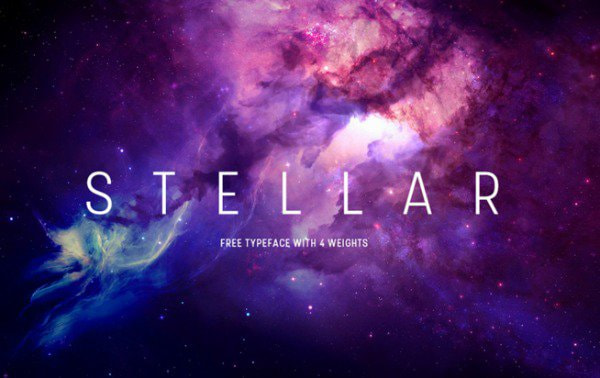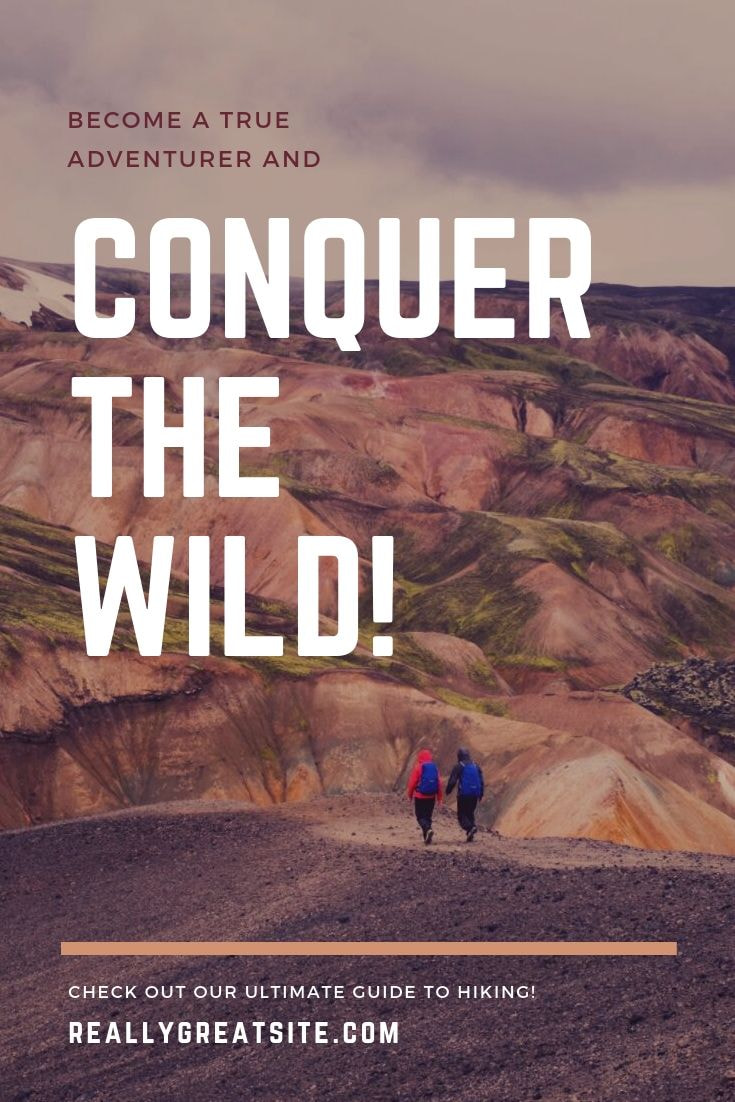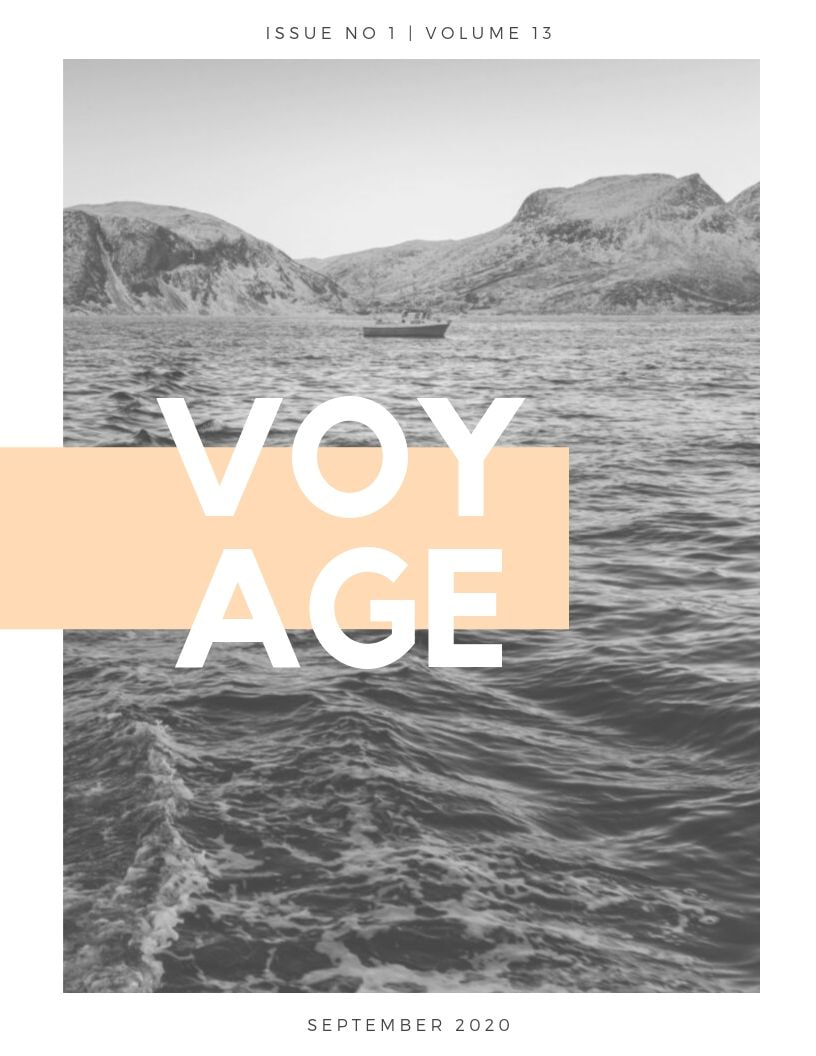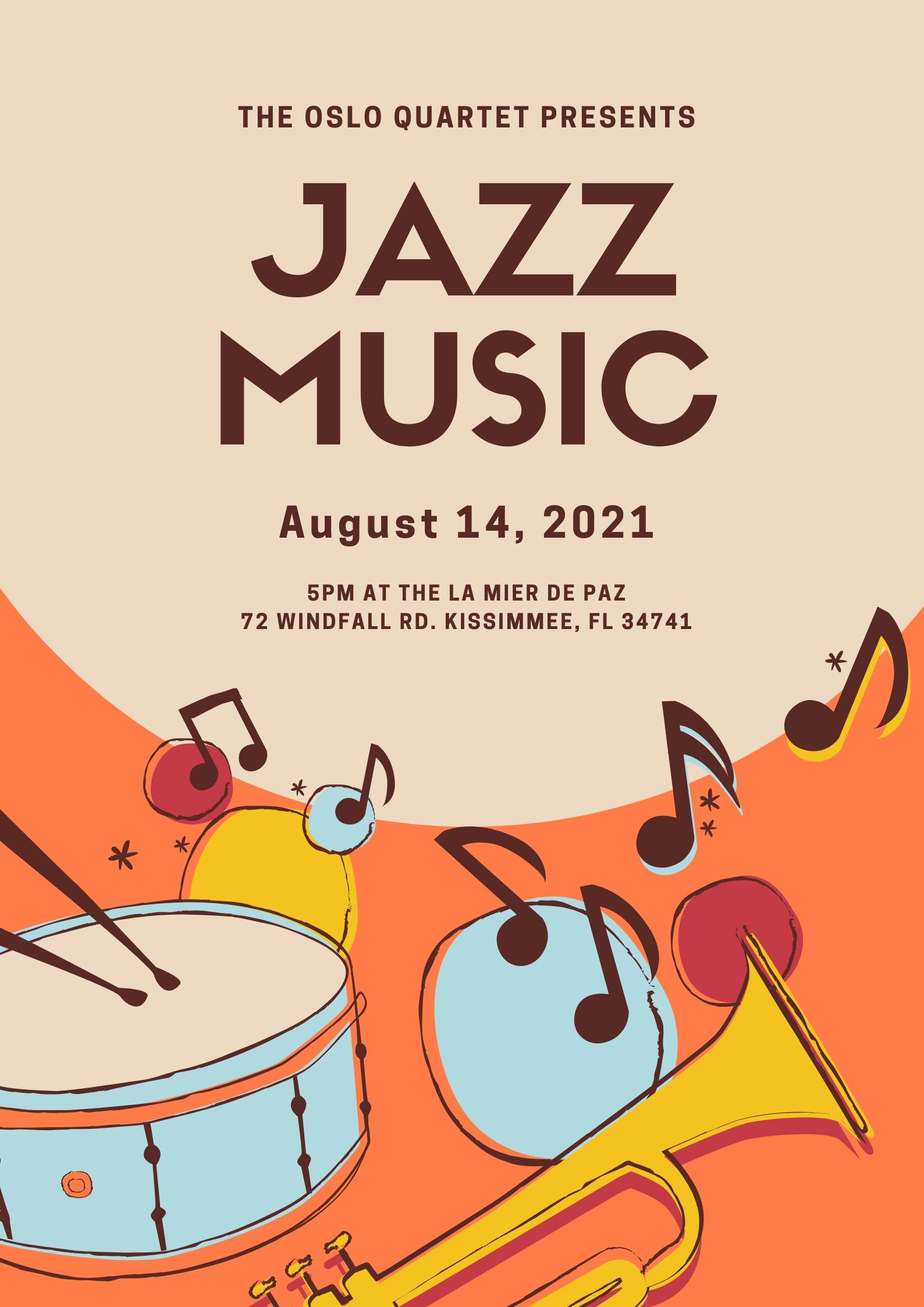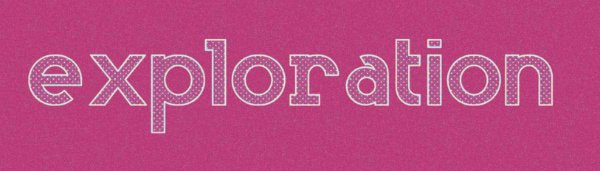
Download Sans Serif Fonts Jar PNG. Google fonts now supports variable fonts. Font name newest most downloads. Browse by alphabetical listing, by style, by author or by popularity. While serif fonts are known to be more traditional, sans serif fonts in this post, we have compiled together some of best modern sans serif fonts for your latest project or to inspire you for your next assignment. Available for personal & commercial. Archive of freely downloadable fonts. The best selection of sans serif fonts for windows and macintosh. 117 downloads free for personal use. Sans serif, commercial use +. Demo donationware free free for personal use public domain, gpl, ofl shareware. Download the best sans serif fonts from the web that are robust, gorgeously designed and perfect for any design project. Sans serif fonts, as you might already know, are the fonts with no projecting lines at the ends. Total in section 1511 of the fonts available to free download. Browse and download sans serif fonts and generate images from custom text with sans serif fonts. The most common examples are arial and helvetica.
60 Free Sans Serif Fonts To Give Your Designs A Modern Touch. The most common examples are arial and helvetica. Google fonts now supports variable fonts. The best selection of sans serif fonts for windows and macintosh. Font name newest most downloads. Total in section 1511 of the fonts available to free download. Browse and download sans serif fonts and generate images from custom text with sans serif fonts. Sans serif, commercial use +. Download the best sans serif fonts from the web that are robust, gorgeously designed and perfect for any design project. Archive of freely downloadable fonts. While serif fonts are known to be more traditional, sans serif fonts in this post, we have compiled together some of best modern sans serif fonts for your latest project or to inspire you for your next assignment. Available for personal & commercial. Browse by alphabetical listing, by style, by author or by popularity. 117 downloads free for personal use. Demo donationware free free for personal use public domain, gpl, ofl shareware. Sans serif fonts, as you might already know, are the fonts with no projecting lines at the ends.
Total in section 1511 of the fonts available to free download. Sans serif fonts are popular, and give your design a modern look. The best selection of sans serif fonts for windows and macintosh. All fonts are categorized and can be saved for quick reference and comparison. Sans serif fonts, as you might already know, are the fonts with no projecting lines at the ends. Каллиграфические и скриптовые шрифты с кириллицей. Archive of freely downloadable fonts.
60 Free Sans Serif Fonts To Give Your Designs A Modern Touch. The best selection of sans serif fonts for windows and macintosh. Font name newest most downloads. Google fonts now supports variable fonts. Total in section 1511 of the fonts available to free download. Demo donationware free free for personal use public domain, gpl, ofl shareware. Browse by alphabetical listing, by style, by author or by popularity. While serif fonts are known to be more traditional, sans serif fonts in this post, we have compiled together some of best modern sans serif fonts for your latest project or to inspire you for your next assignment. Sans serif, commercial use +. 117 downloads free for personal use. Browse and download sans serif fonts and generate images from custom text with sans serif fonts. Sans serif fonts, as you might already know, are the fonts with no projecting lines at the ends. Download the best sans serif fonts from the web that are robust, gorgeously designed and perfect for any design project. Archive of freely downloadable fonts. The most common examples are arial and helvetica. Available for personal & commercial.
60 Free Sans Serif Fonts To Give Your Designs A Modern Touch. The most common examples are arial and helvetica. Sans serif fonts, as you might already know, are the fonts with no projecting lines at the ends. Download the best sans serif fonts from the web that are robust, gorgeously designed and perfect for any design project. Archive of freely downloadable fonts. Google fonts now supports variable fonts. Total in section 1511 of the fonts available to free download. Sans serif, commercial use +. Available for personal & commercial. Browse by alphabetical listing, by style, by author or by popularity. The best selection of sans serif fonts for windows and macintosh. Font name newest most downloads. 117 downloads free for personal use. Browse and download sans serif fonts and generate images from custom text with sans serif fonts. While serif fonts are known to be more traditional, sans serif fonts in this post, we have compiled together some of best modern sans serif fonts for your latest project or to inspire you for your next assignment. Demo donationware free free for personal use public domain, gpl, ofl shareware.
This font is equipped with uppercase, lowercase, numbers, punctuation, and several variations on each character.
60 Free Sans Serif Fonts To Give Your Designs A Modern Touch. Sans serif fonts, as you might already know, are the fonts with no projecting lines at the ends. Browse by alphabetical listing, by style, by author or by popularity. Download the best sans serif fonts from the web that are robust, gorgeously designed and perfect for any design project. The most common examples are arial and helvetica. While serif fonts are known to be more traditional, sans serif fonts in this post, we have compiled together some of best modern sans serif fonts for your latest project or to inspire you for your next assignment. Font name newest most downloads. 117 downloads free for personal use. Google fonts now supports variable fonts. Sans serif, commercial use +. Browse and download sans serif fonts and generate images from custom text with sans serif fonts. Total in section 1511 of the fonts available to free download. Available for personal & commercial. The best selection of sans serif fonts for windows and macintosh. Demo donationware free free for personal use public domain, gpl, ofl shareware. Archive of freely downloadable fonts.
60 Free Sans Serif Fonts To Give Your Designs A Modern Touch. Sans serif fonts, as you might already know, are the fonts with no projecting lines at the ends. Archive of freely downloadable fonts. Demo donationware free free for personal use public domain, gpl, ofl shareware. The most common examples are arial and helvetica. Browse and download sans serif fonts and generate images from custom text with sans serif fonts. Browse by alphabetical listing, by style, by author or by popularity. Total in section 1511 of the fonts available to free download. Font name newest most downloads. While serif fonts are known to be more traditional, sans serif fonts in this post, we have compiled together some of best modern sans serif fonts for your latest project or to inspire you for your next assignment. 117 downloads free for personal use. Download the best sans serif fonts from the web that are robust, gorgeously designed and perfect for any design project. Google fonts now supports variable fonts. The best selection of sans serif fonts for windows and macintosh. Sans serif, commercial use +. Available for personal & commercial.
Total in section 1511 of the fonts available to free download.
Sans Serif Archives Freebie Jar. Available for personal & commercial. 117 downloads free for personal use. Browse and download sans serif fonts and generate images from custom text with sans serif fonts. Download the best sans serif fonts from the web that are robust, gorgeously designed and perfect for any design project. The most common examples are arial and helvetica. Sans serif fonts, as you might already know, are the fonts with no projecting lines at the ends. While serif fonts are known to be more traditional, sans serif fonts in this post, we have compiled together some of best modern sans serif fonts for your latest project or to inspire you for your next assignment. The best selection of sans serif fonts for windows and macintosh. Archive of freely downloadable fonts. Browse by alphabetical listing, by style, by author or by popularity. Google fonts now supports variable fonts. Total in section 1511 of the fonts available to free download. Font name newest most downloads. Sans serif, commercial use +. Demo donationware free free for personal use public domain, gpl, ofl shareware.
60 Free Sans Serif Fonts To Give Your Designs A Modern Touch. Sans serif, commercial use +. Download the best sans serif fonts from the web that are robust, gorgeously designed and perfect for any design project. Google fonts now supports variable fonts. Total in section 1511 of the fonts available to free download. The most common examples are arial and helvetica. The best selection of sans serif fonts for windows and macintosh. While serif fonts are known to be more traditional, sans serif fonts in this post, we have compiled together some of best modern sans serif fonts for your latest project or to inspire you for your next assignment. Browse and download sans serif fonts and generate images from custom text with sans serif fonts. Available for personal & commercial. Browse by alphabetical listing, by style, by author or by popularity. Sans serif fonts, as you might already know, are the fonts with no projecting lines at the ends. Font name newest most downloads. Archive of freely downloadable fonts. 117 downloads free for personal use. Demo donationware free free for personal use public domain, gpl, ofl shareware.
117 downloads free for personal use. Due to copyright issues, this font has been removed. Google fonts now supports variable fonts. Total in section 1511 of the fonts available to free download. 117 downloads free for personal use. This font is equipped with uppercase, lowercase, numbers, punctuation, and several variations on each character. A brand new serif with a bonus sans for. You can customize your experience with live font previews. Microsoft sans serif regular font.ttf. Demo donationware free free for personal use public domain, gpl, ofl shareware.